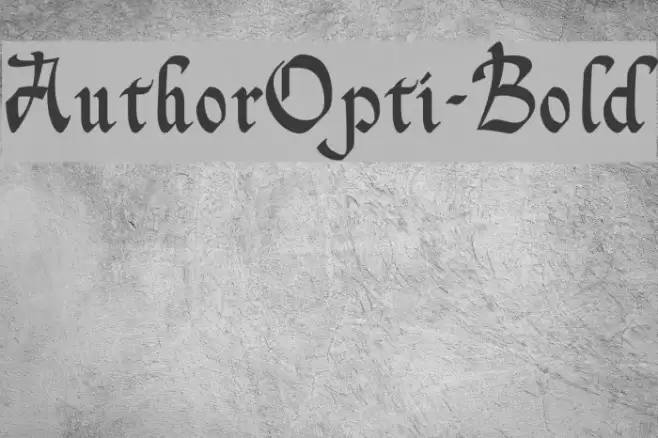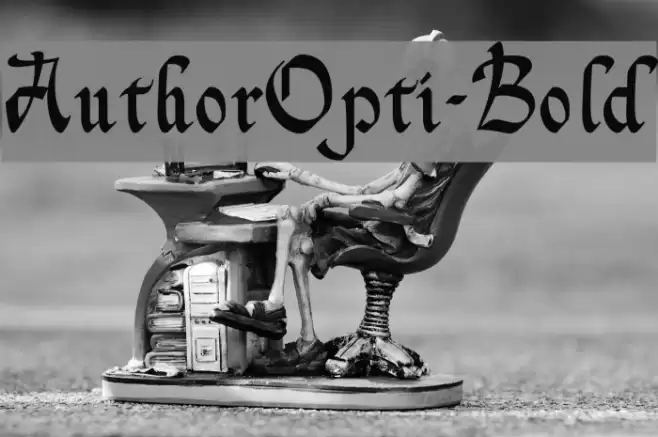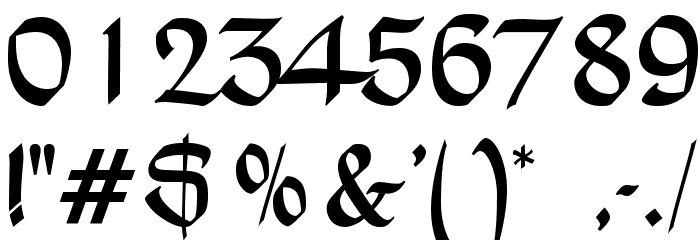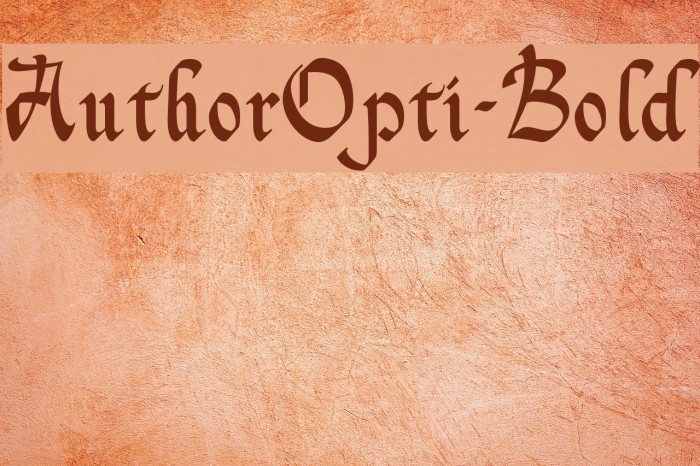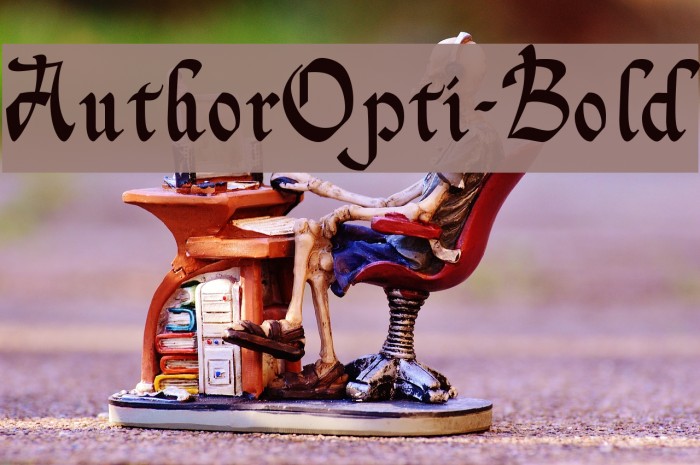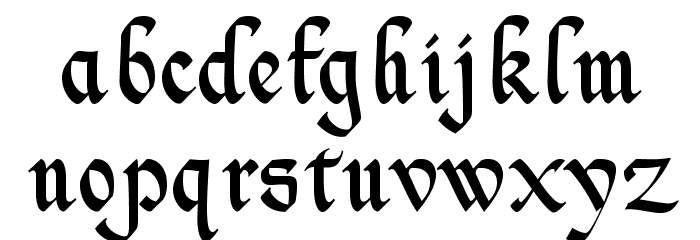
AuthorOpti-Bold Font
AuthorOpti-Bold Description
This font features a bold and dramatic style, reminiscent of traditional calligraphy with a modern twist. The uppercase letters are characterized by sharp, angular lines and pronounced serifs, giving them a strong and authoritative presence. The lowercase letters maintain a similar aesthetic, with a slightly more fluid and connected appearance, enhancing readability while preserving the font's distinctive style. Numbers and special characters are crafted with the same attention to detail, ensuring consistency across all elements. The overall design is both elegant and impactful, making it suitable for a variety of creative applications.
A bold, calligraphic font with sharp angles and pronounced serifs from Uncategorized fonts.
- Proposed Projects: Ideal for branding, headlines, posters, and invitations that require a touch of elegance and authority.
- Overall Style: Classic
- Use Case: Headlines, Logos, Invitations